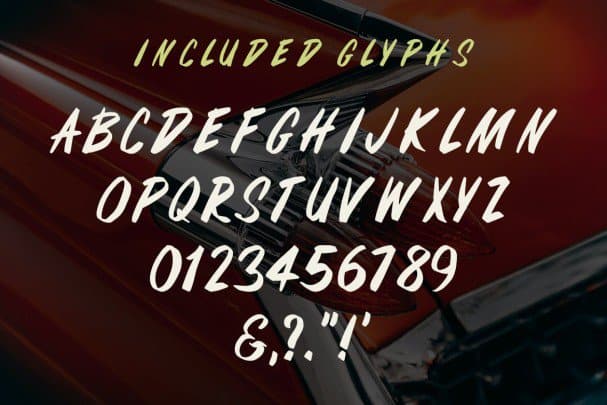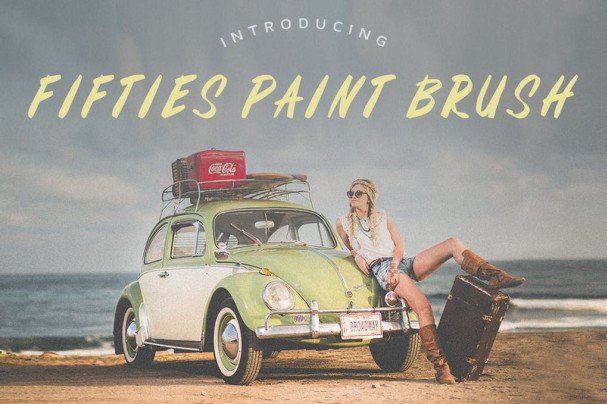
Fifties Paint Brush Font
Fifties Paint Brush Font falls into the class of the top rate fonts. That is well-known for its script typeface and it’s also listed inside google fonts. As a give up save you give up forestall prevent end result, it makes it feasible for being one of the important multi-treasured that is similar to soviet league alternatives and pinnacle-notch to assist your format and appear knowledgeable. It’s miles bendy this is a terrific way to artwork in frame replica as right as titles, and there may be an understated beauty to it that we quite like.
So, it’s taken into consideration top-notch for quite-cutting-edge-day-day designs. Fifties Paint Brush Font Free You need to pick out out the form of font that’s properly superior, and each and all people are recognizable in small sizes, formidable, or italic. And all of those styles have possessed OpenType file formats. This font is the amazing one that has lines at the pinnacle of really sincerely everybody.
As a possibility, a sans-serif font is just like utm avo font kind is without greater lines. Download Preserve in thoughts the context and motive the marketplace of your projected format. Get to understand how and the place the purchaser goes to show the image. It’s far a whole strawberry blossom brush font with a nature of commonality that looks powerful in an in-depth scope of makes use of like printing or displaying.
It seems like wild magnolia and appealing fonts.